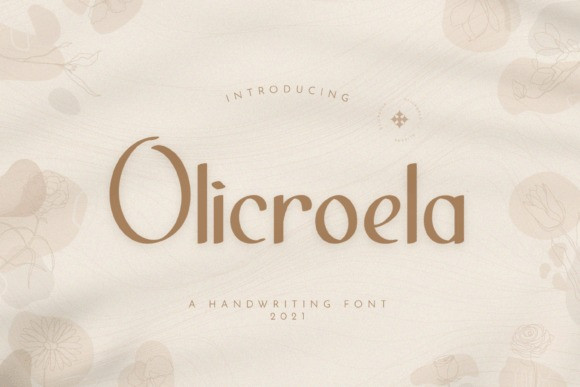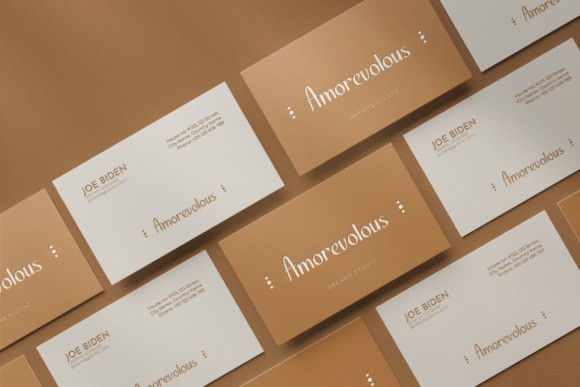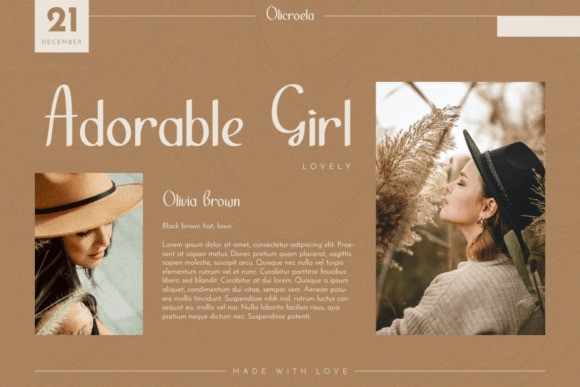
Olicroela Font
Olicroela is a clean and neat display font perfect for any project, especially branding, logos, and posters. “Olicroela” will bring a touch of beauty to your design projects. Moreover, it will make your design look attractive and artistic.